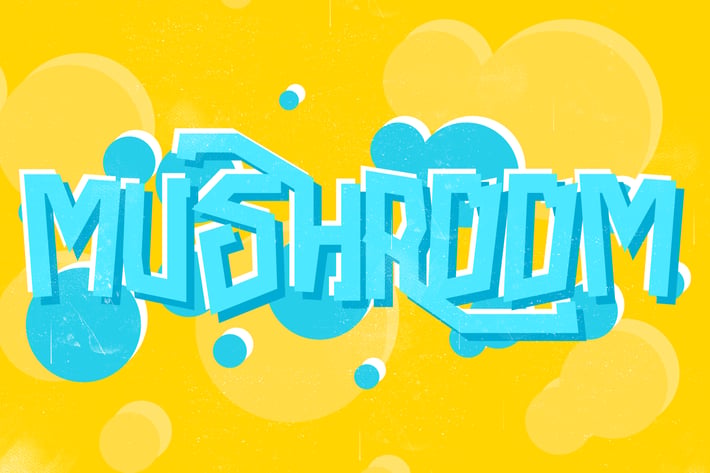
Mushroom Font
Characteristic of this fonts will act to create an ambience of fun.
The font can be used for many purposes but looks great when put on signs, shirts or cards. Also, it works perfect on fresh summer theme designs.